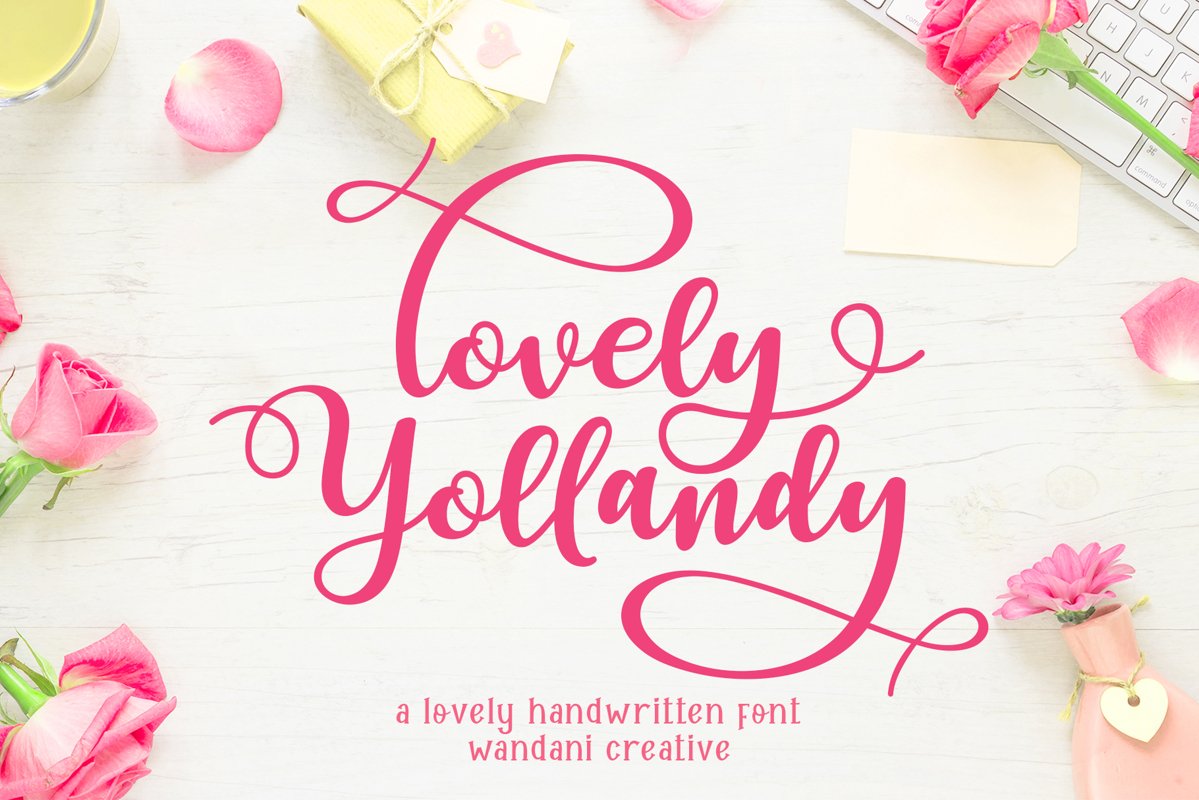
Lovely Yollandy - Script Font
Lovely Yollandy
Lovely Yollandy is a beautiful and adorable script handwritten font we designed to easily represent the lovely, fun, and friendly taste/personality.
Lovely Yollandy would perfect for invitation, logos & branding, photography, advertisements, watermark, social media posts, product packaging, product designs, label, wedding designs, stationery, special events, or anything that need a beautiful and lovely taste.